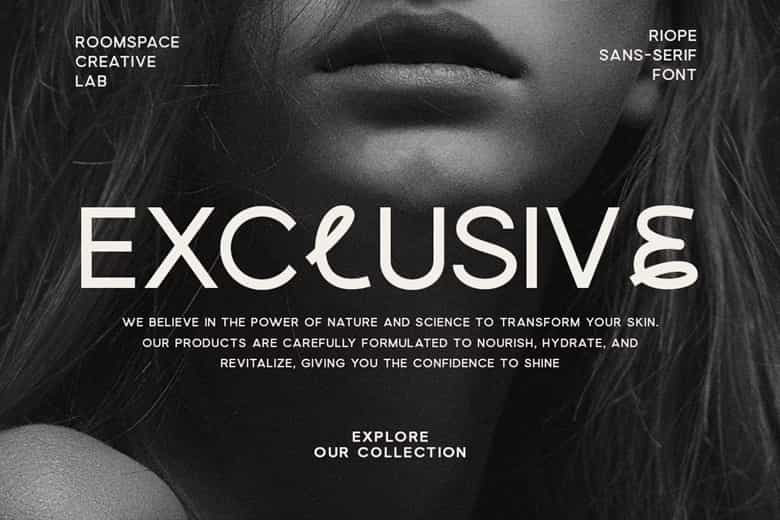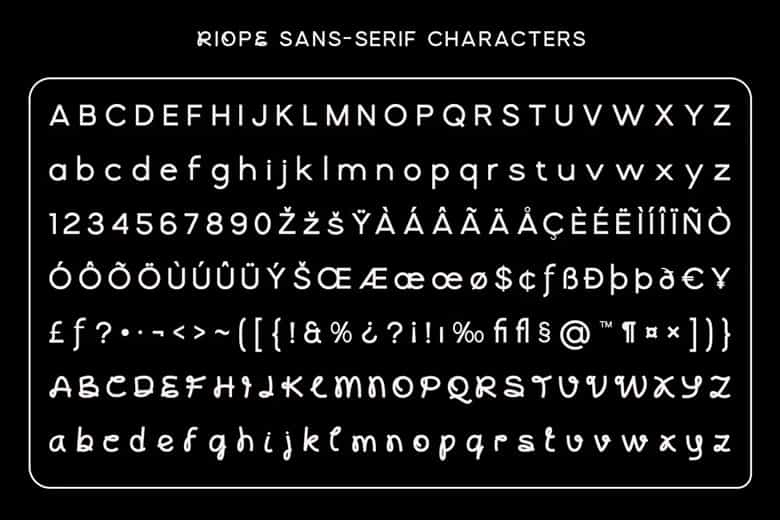
Riope font is designed to bring flawless balance in letters. Riope goes out as to add an imaginative and singular flourish by possessing substitute characters based on monoline scripts, which yet has high legibility. Having the modern futuristic style, Riope is universal enough in the way of being used in different kind of design as branding logo, poster, or even packaging.